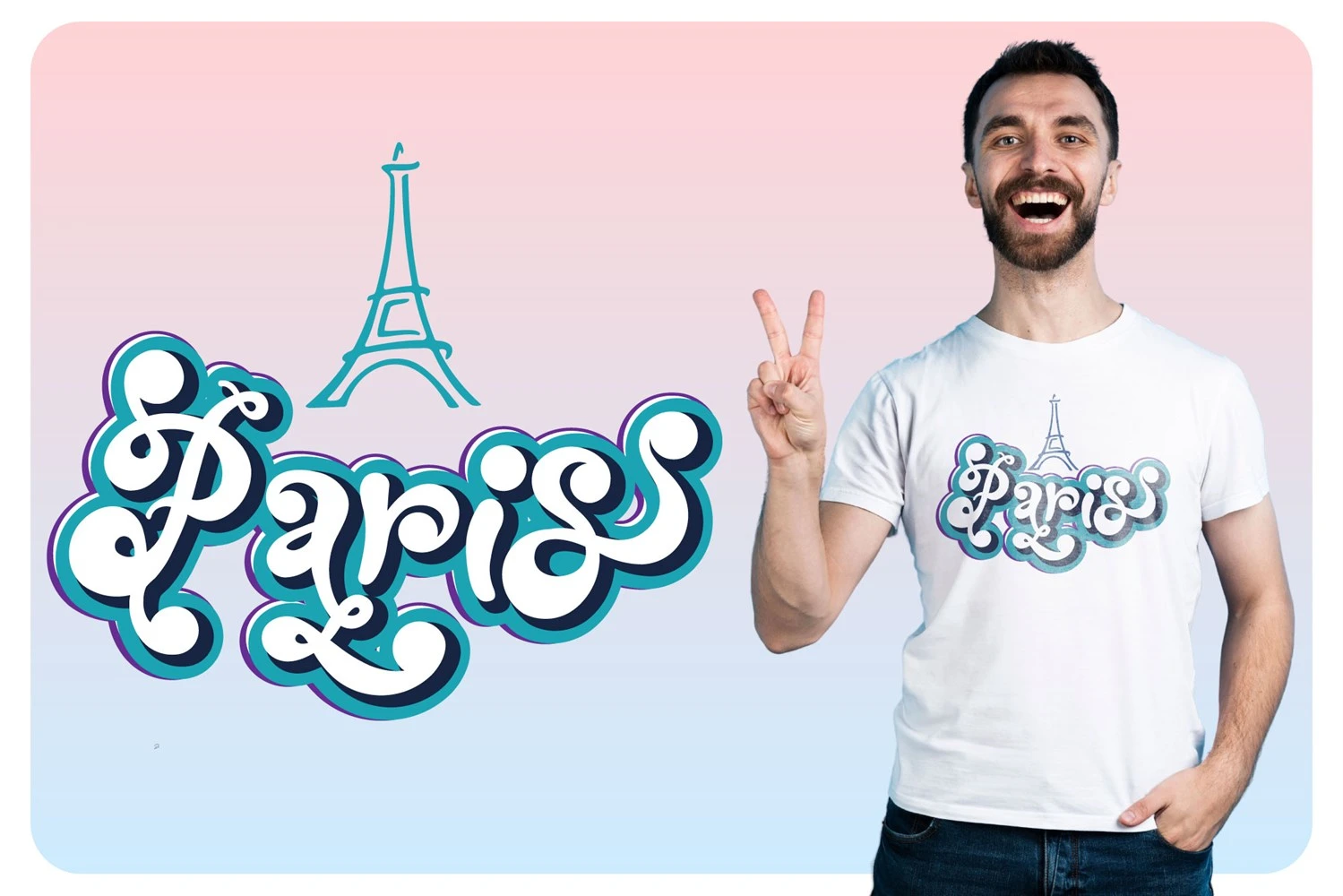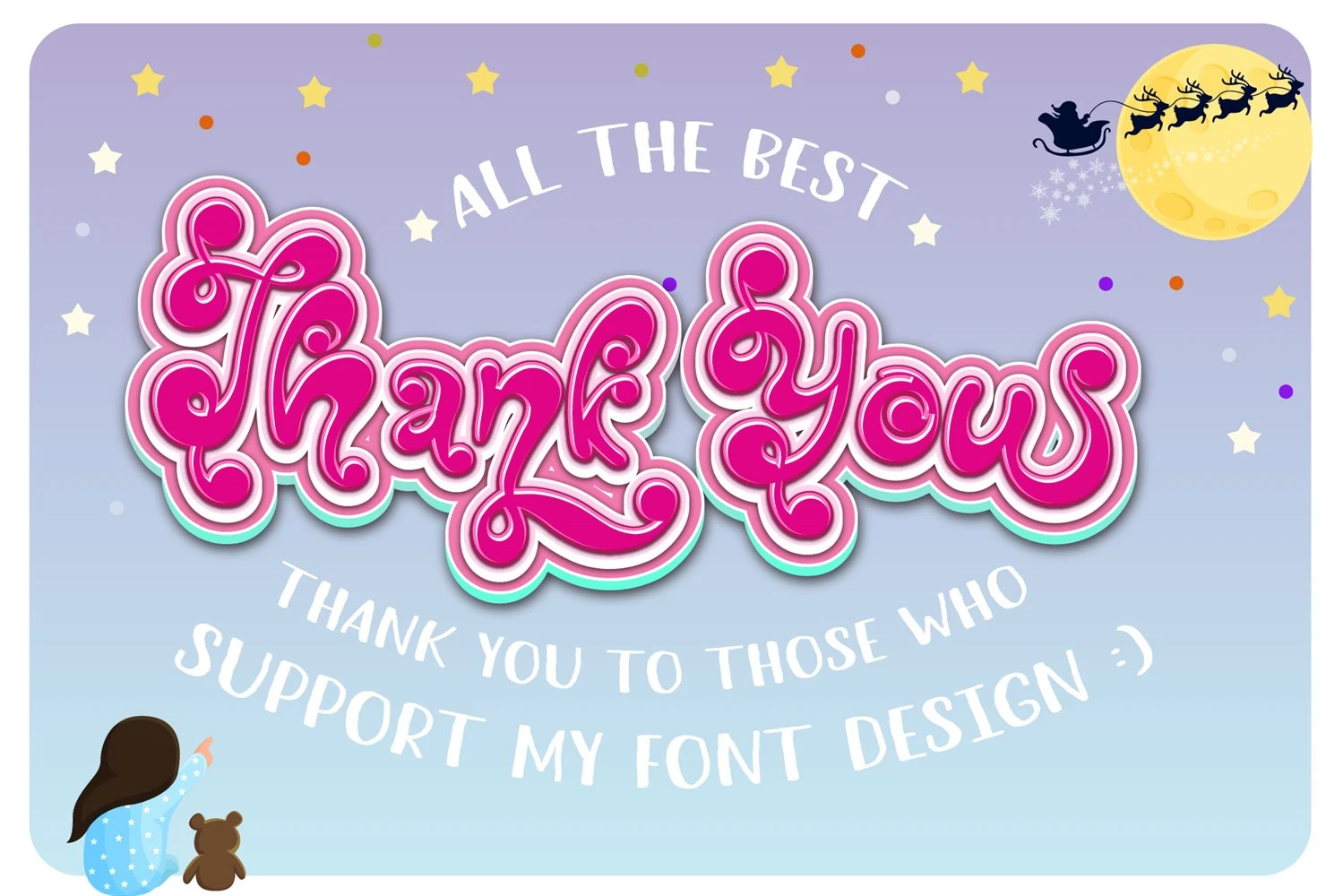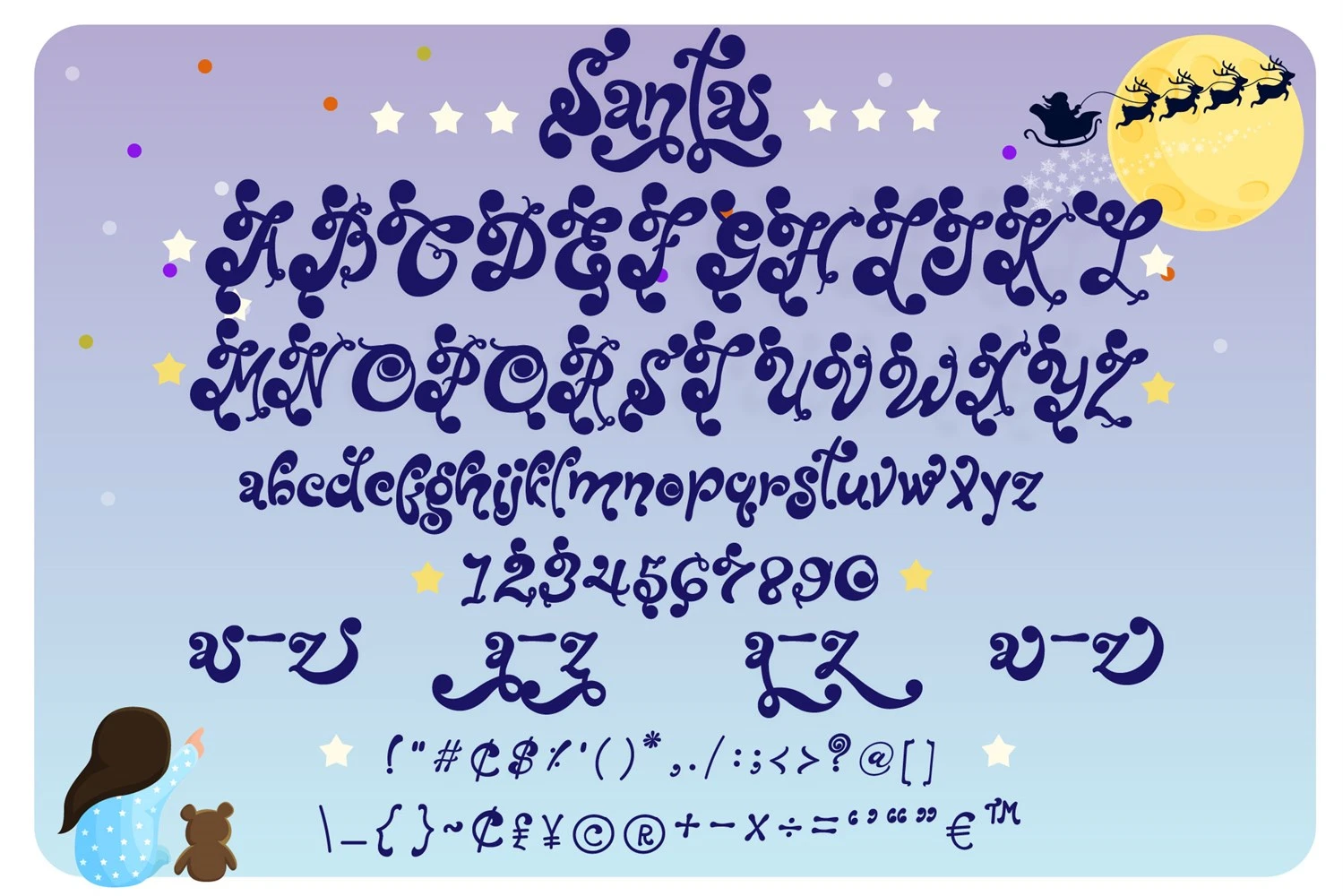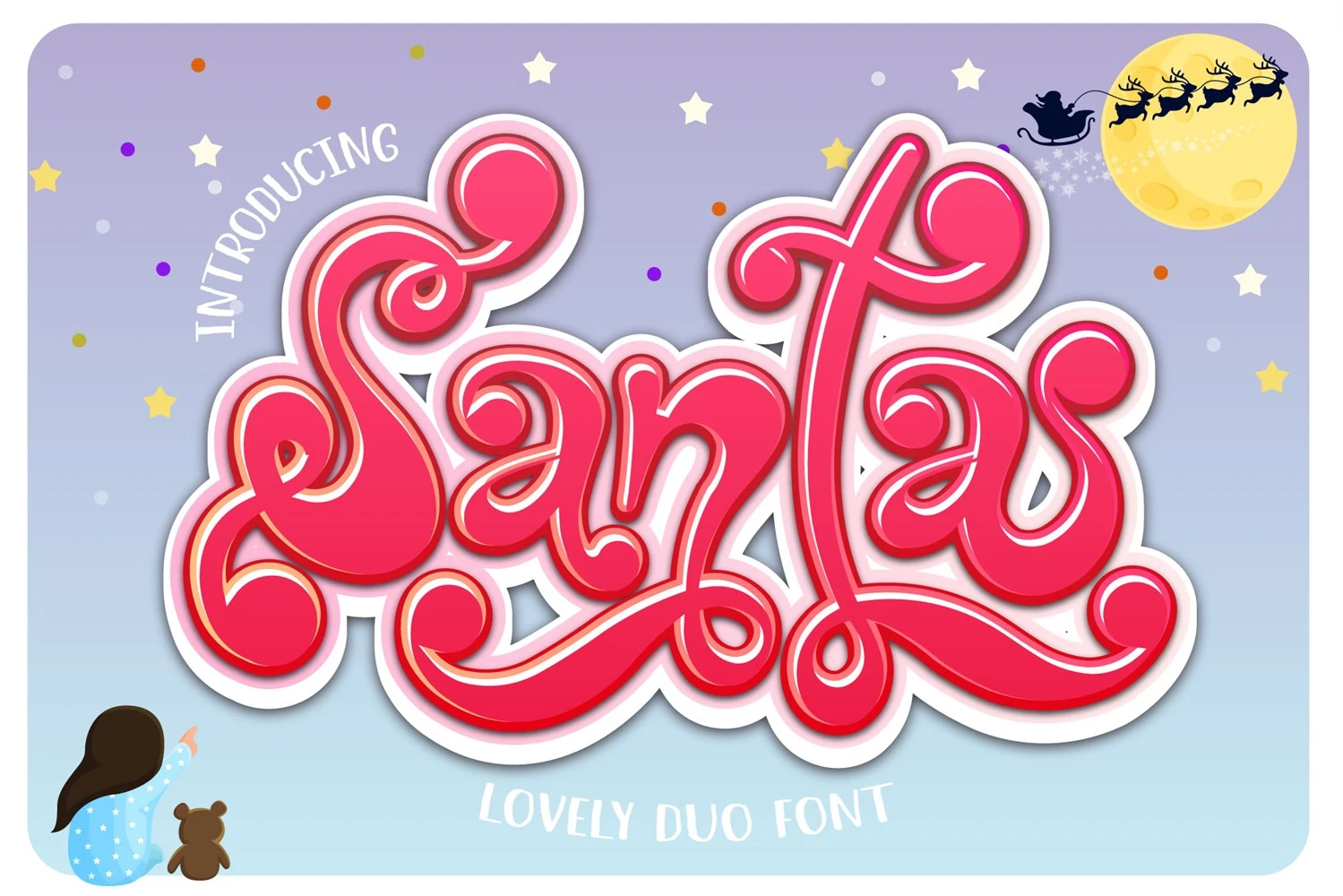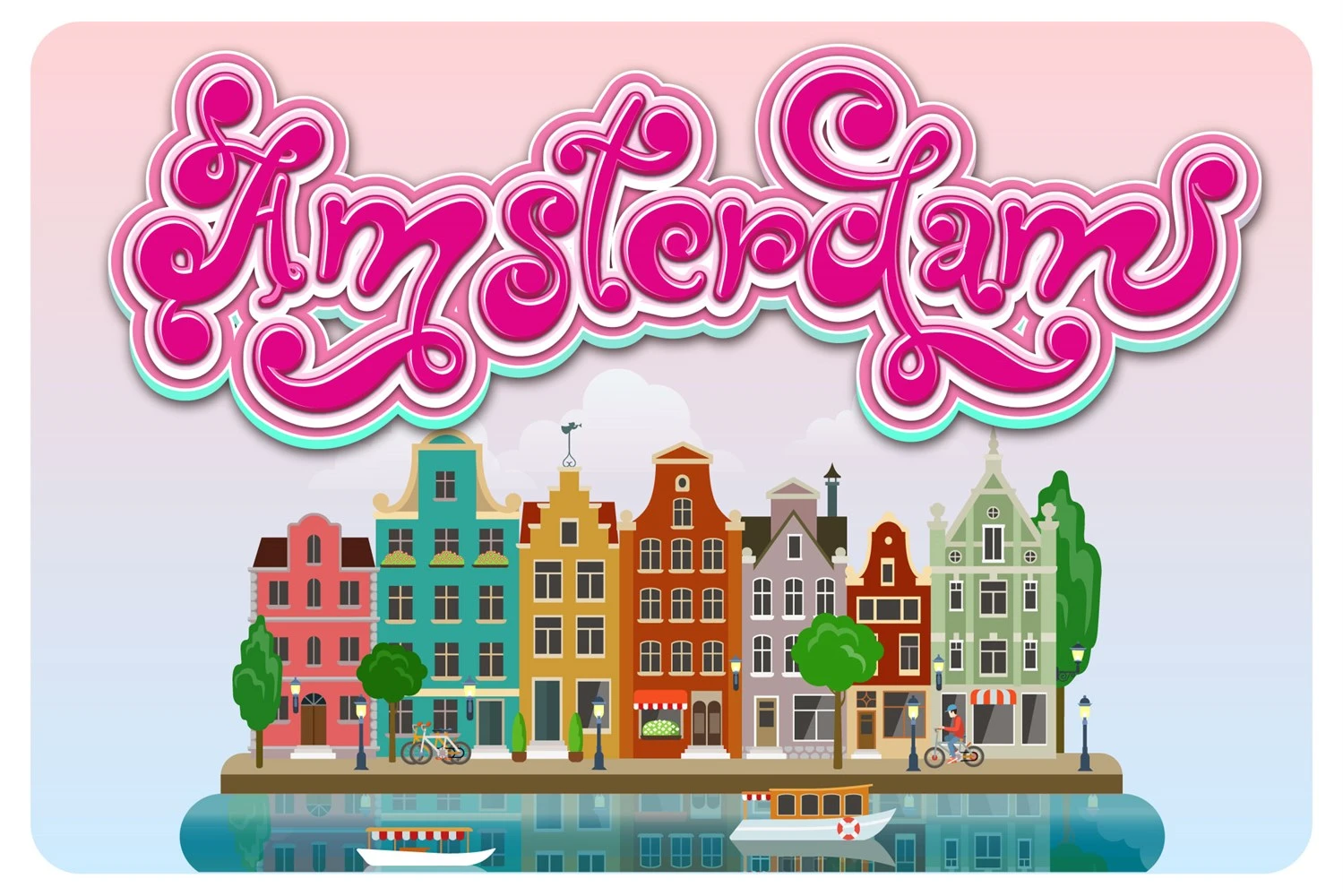
Santa Font is a lovely duo font featuring both a display and script style. With its retro and vintage vibes, this font is perfect for adding a chic and cheery touch to your crafts. Whether used together or separately, Santa Font brings a delightful and festive charm to your designs. The font is PUA encoded, granting you easy access to all the unique glyphs and swashes it offers. Let your creativity soar with Santa Font and create beautiful typographic artworks, branding, invitations, and more.